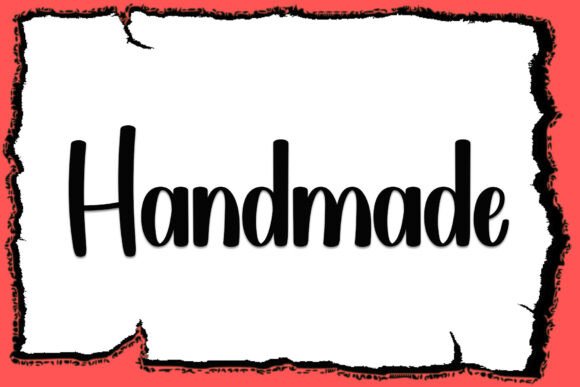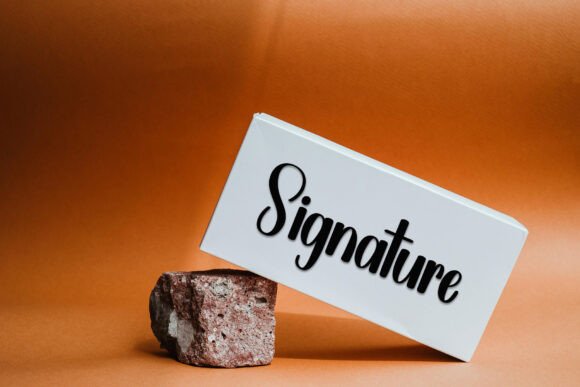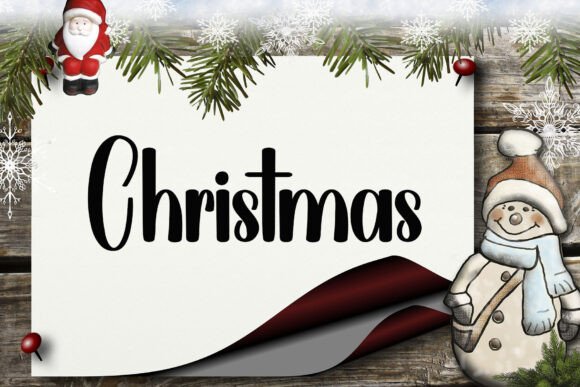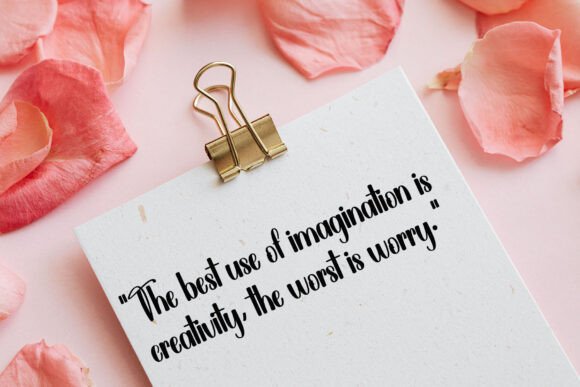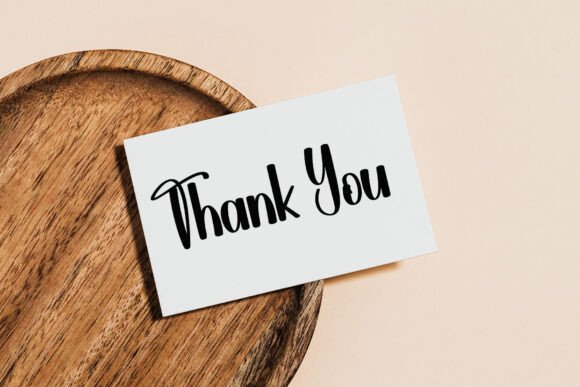
The Bulldog Font: A Timeless Classic with a Modern Twist
I’ll never forget the design project that led me to discover the Bulldog font. I was working on a branding project for a high-end boutique hotel, and I needed a font that exuded elegance and sophistication. After hours of scouring font libraries and testing various options, I stumbled upon Bulldog – a trendy handwritten font with a contemporary atmosphere and impeccable form. It was love at first sight! 💕
Inspired by timeless classic calligraphy, Bulldog brings a touch of refinement to any design project. In this article, I’ll share my experience with this beautiful font, its features, and how to make the most of it in your designs.
- ✨ Elegant and refined appearance, perfect for high-end branding and luxury designs
- ✅ Impeccable form and classic calligraphy inspiration
- 💫 Highly versatile, suitable for various design projects, from logos to headings and body text
- 🎨 Beautiful OpenType features, including stylistic alternates and glyphs
While Bulldog is an exceptional font, there are a few minor limitations to consider:
- 🤔 Limited availability of condensed or italic styles, which may limit its use in certain design contexts
- ⚠️ Some characters may require manual kerning for optimal results
The Designer Inspiration Behind Bulldog
Bulldog’s design story begins with a passion for classic calligraphy. The font’s creator drew inspiration from timeless typography, infusing it with a modern twist to create a truly unique and elegant font. 💫
With Bulldog, the goal was to craft a font that would bring sophistication and refinement to any design project. The result is a versatile and beautiful font that has captured the hearts of designers worldwide.
Q: What makes Bulldog a great choice for luxury branding?
A: Bulldog’s elegant and refined appearance, inspired by classic calligraphy, makes it an excellent choice for luxury branding and high-end designs.
Q: Can I use Bulldog for body text?
A: While Bulldog is primarily designed for headlines and titles, its clear and elegant lines make it suitable for body text in certain design contexts, such as luxury publications or high-end websites.
Q: Does Bulldog support OpenType features?
A: Yes, Bulldog supports various OpenType features, including stylistic alternates, swashes, and glyphs, allowing you to add visual interest and elegance to your designs.